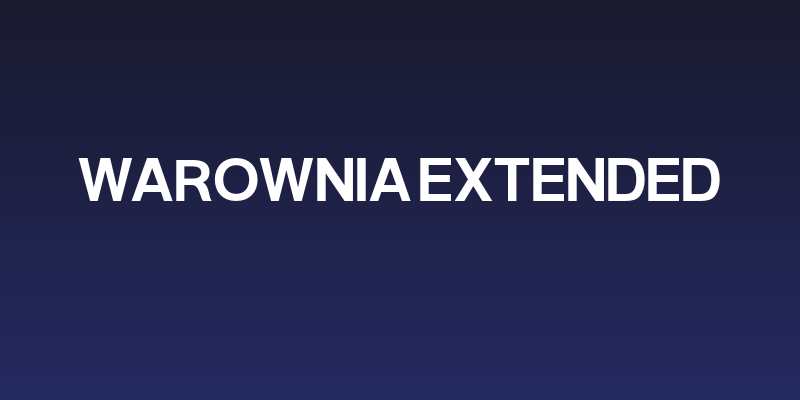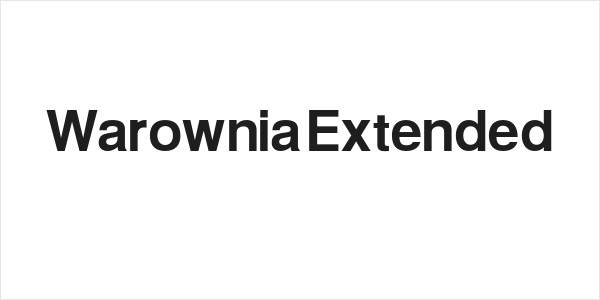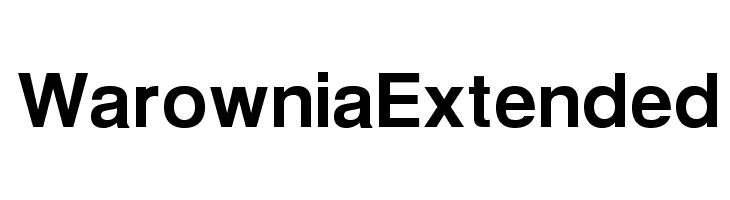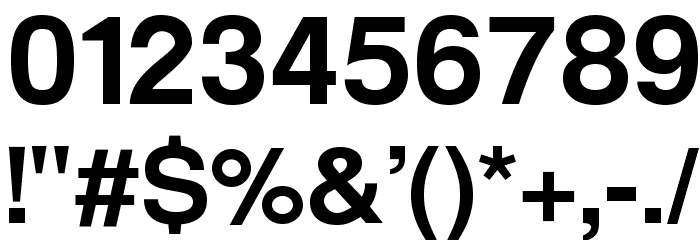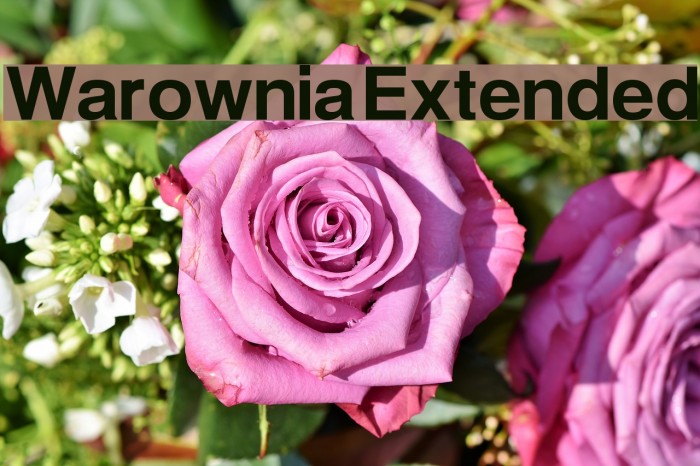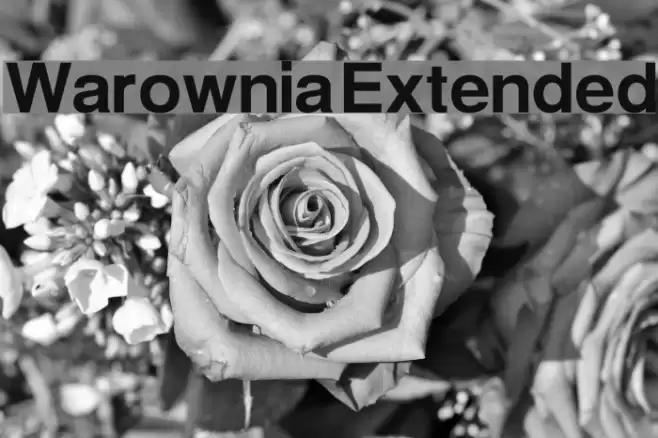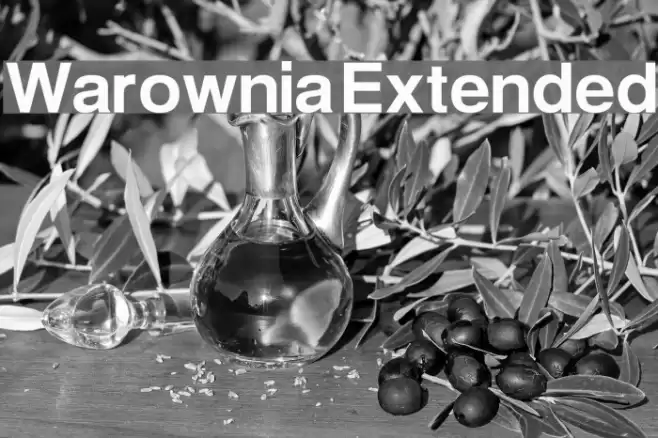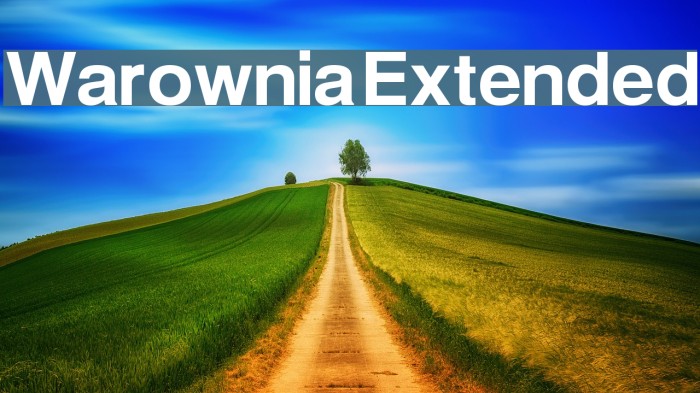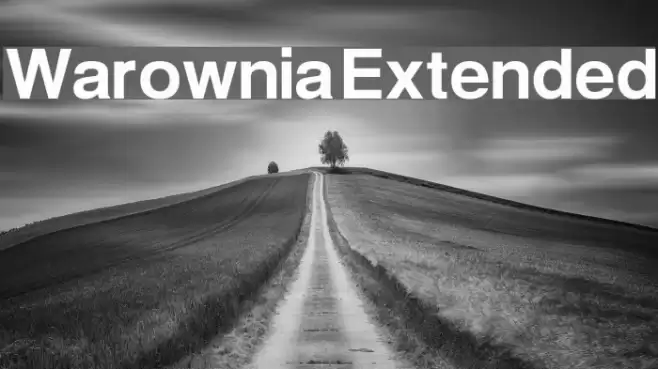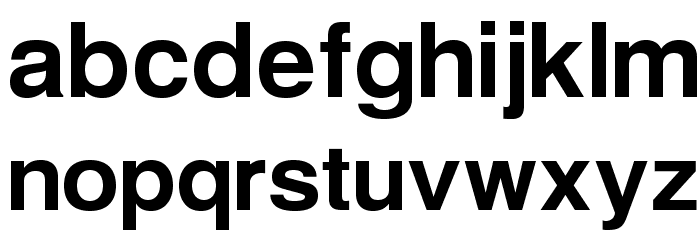
Warownia Extended Font
Warownia Extended Description
This font features a clean and modern sans-serif design with uniform stroke widths, providing a bold and assertive appearance. The characters are well-proportioned, with a consistent height and width that enhances readability. The uppercase letters are strong and commanding, while the lowercase letters maintain a friendly and approachable feel. The numerals are clear and distinct, making them suitable for various applications. Special characters are well-integrated, maintaining the overall aesthetic. This font's simplicity and clarity make it versatile for both digital and print media.
| Use Case | Headlines, Logos, Digital content |
| Proposed Projects | Ideal for branding, advertising, headlines, and digital content where clarity and impact are essential. |